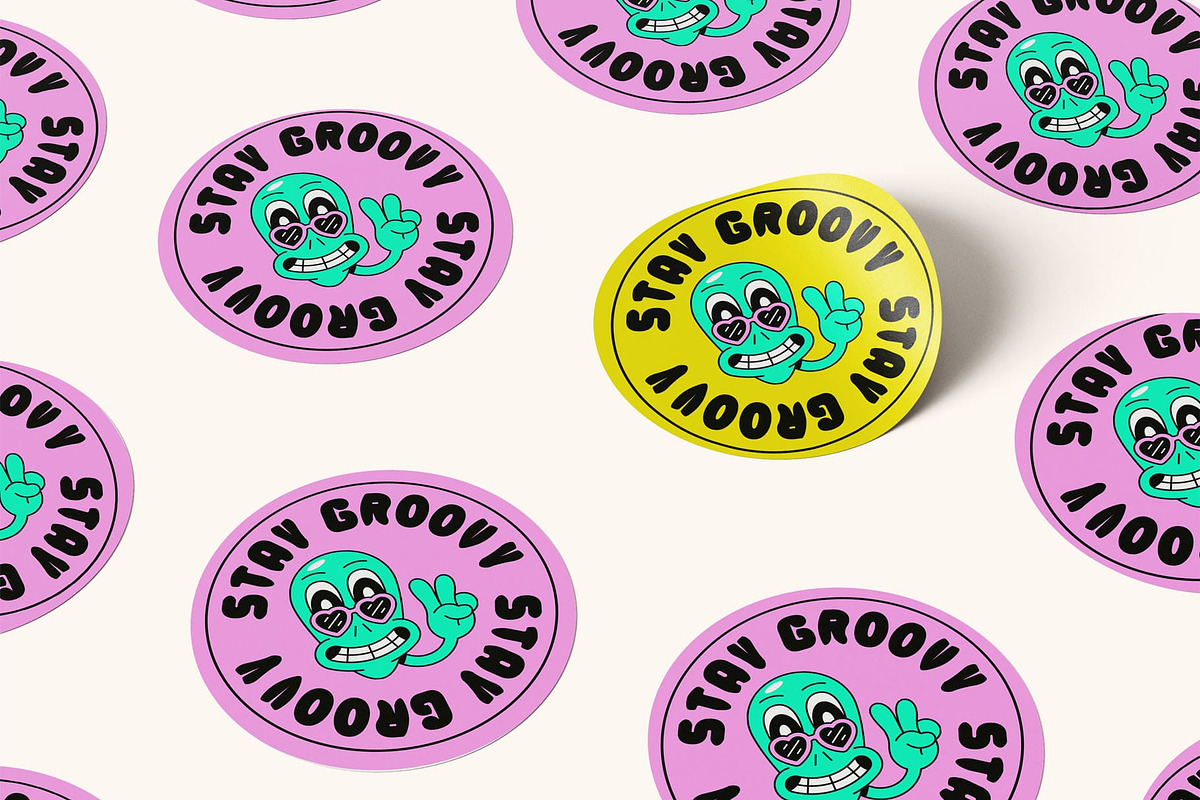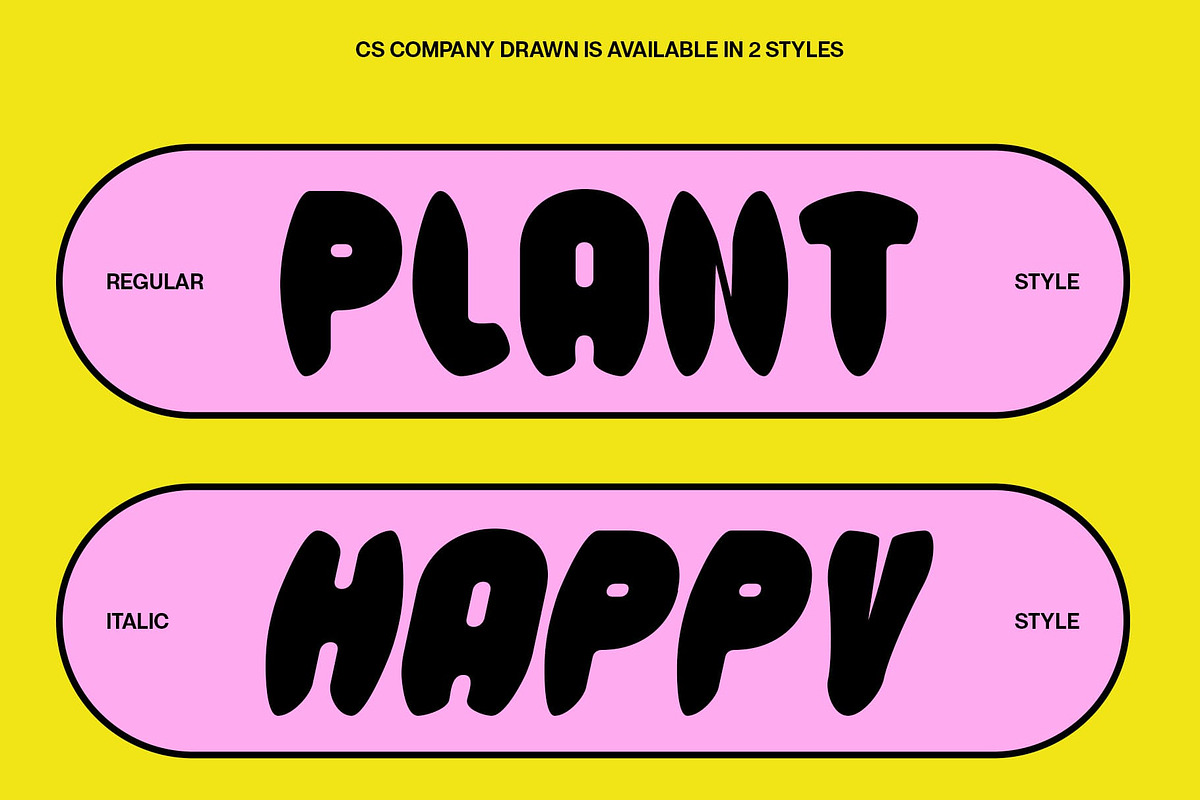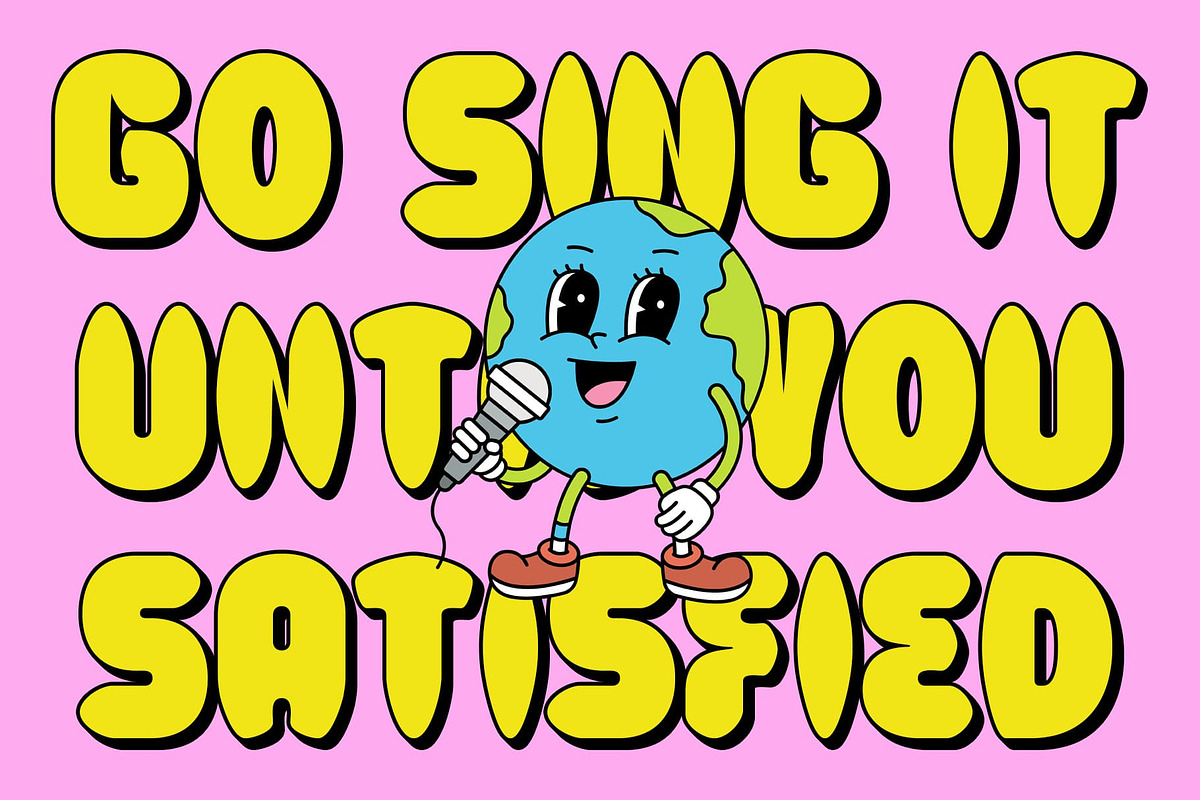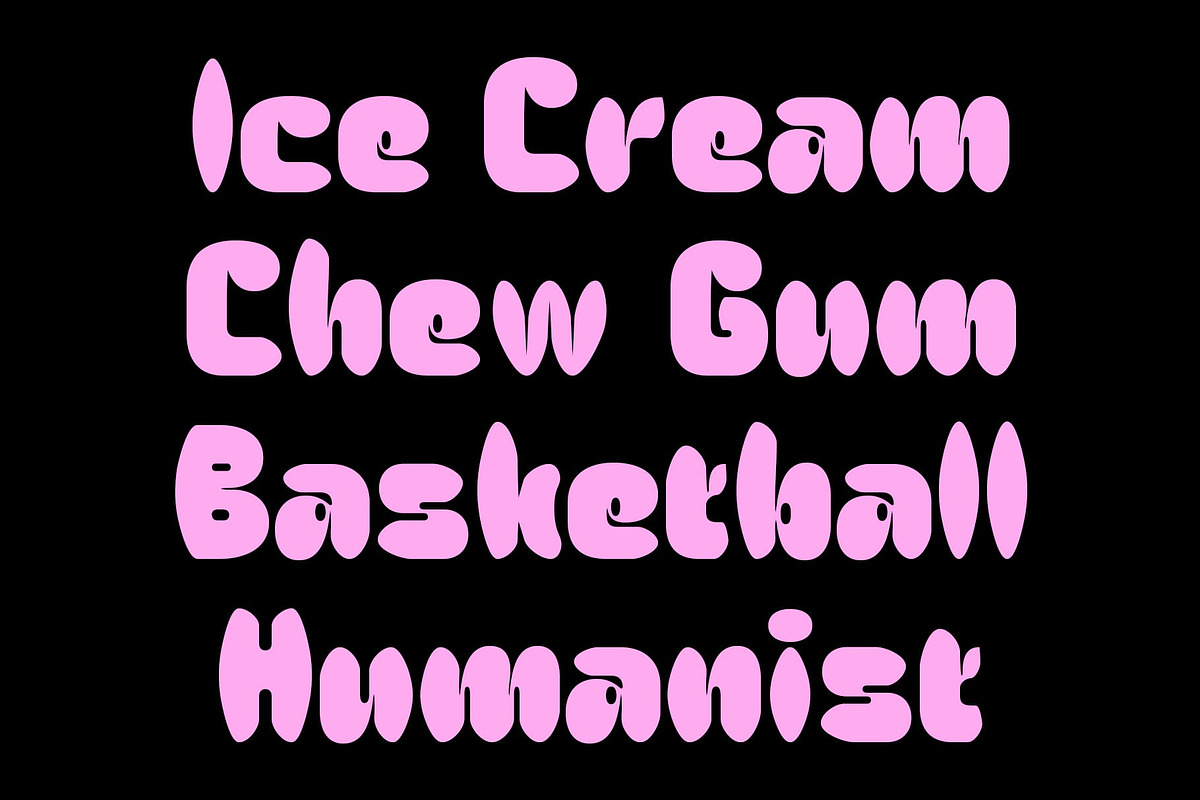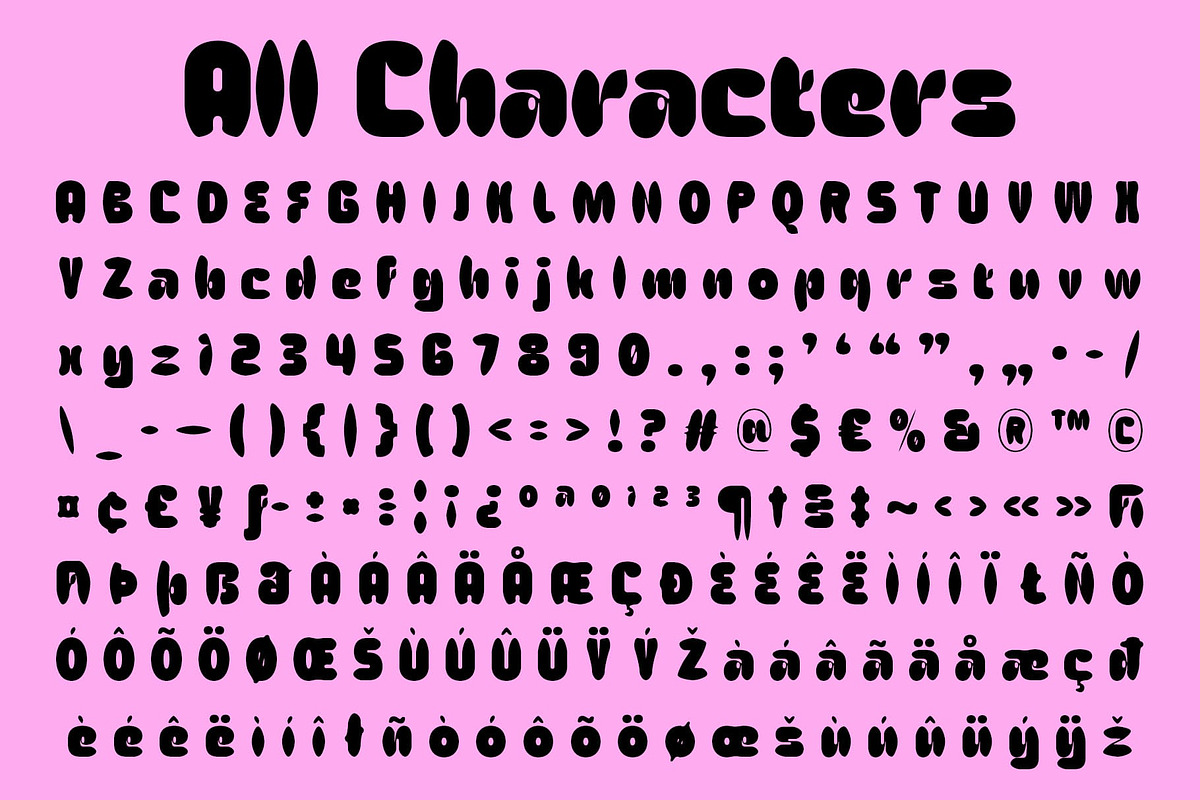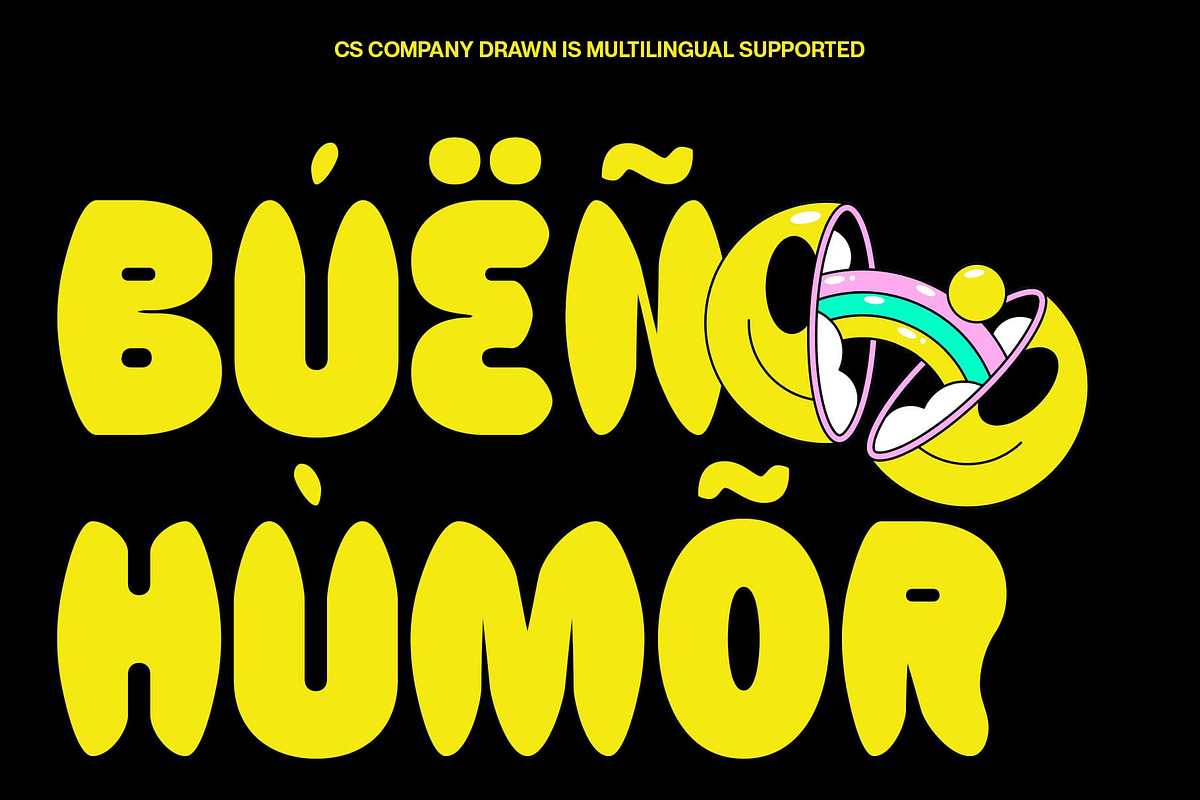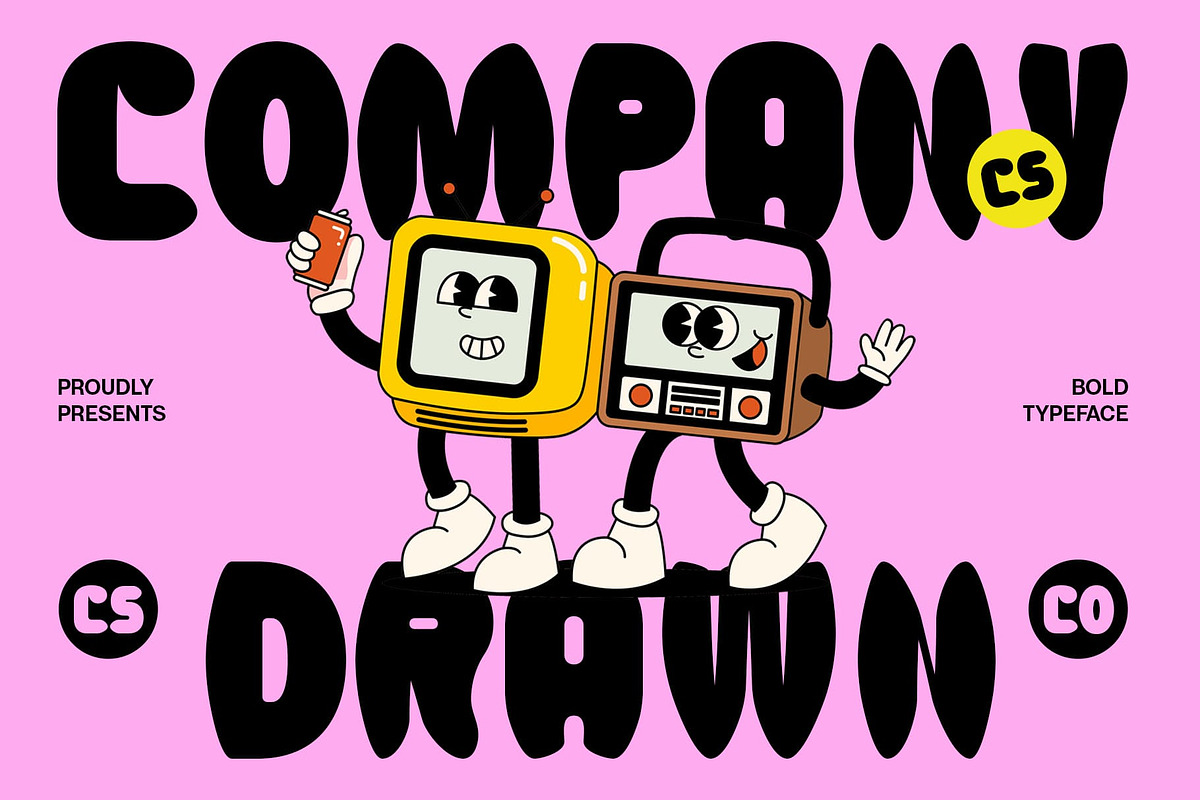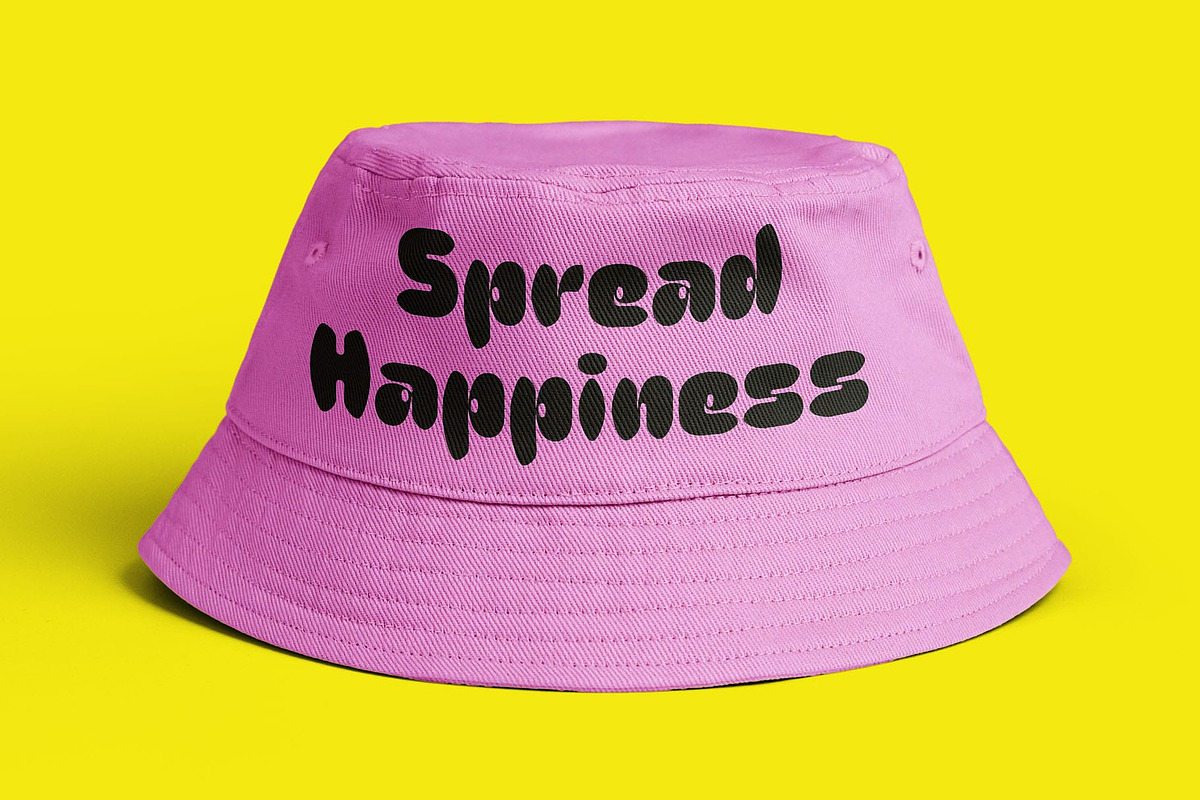
CS Company Drawn
CS Company Drawn – Bold, Funky, and Full of Personality
Fun and Bold with a Creative Twist This is a bold display sans serif font infused with a cute, funky personality that instantly grabs attention. The font’s hand-drawn effect adds a touch of imperfection, creating a style that feels lively, expressive, and full of character.
Expressive Shapes for Joyful Visuals Every letterform in this expressive font feels like it’s dancing on the page. The rounded edges, dynamic proportions, and subtle hand-drawn texture bring a sense of motion and energy, perfect for delivering messages with warmth and fun. It’s designed to spark joy while keeping your typography clear, readable, and full of flair.
Perfect for Creative and Youthful Design Whether you’re designing children’s books, educational content, funky posters, playful packaging, or vibrant social media posts, this font brings a joyful, friendly touch to every project. Its bold form ensures visibility, while its funky edge keeps things lighthearted and memorable.
Versatile and Engaging Across Media From digital screens to printed merchandise, this font thrives in any setting where creative expression and bold aesthetics are key. Use it for logos, stickers, animated titles, or event posters—anywhere you want your message to be fun, fresh, and full of life.